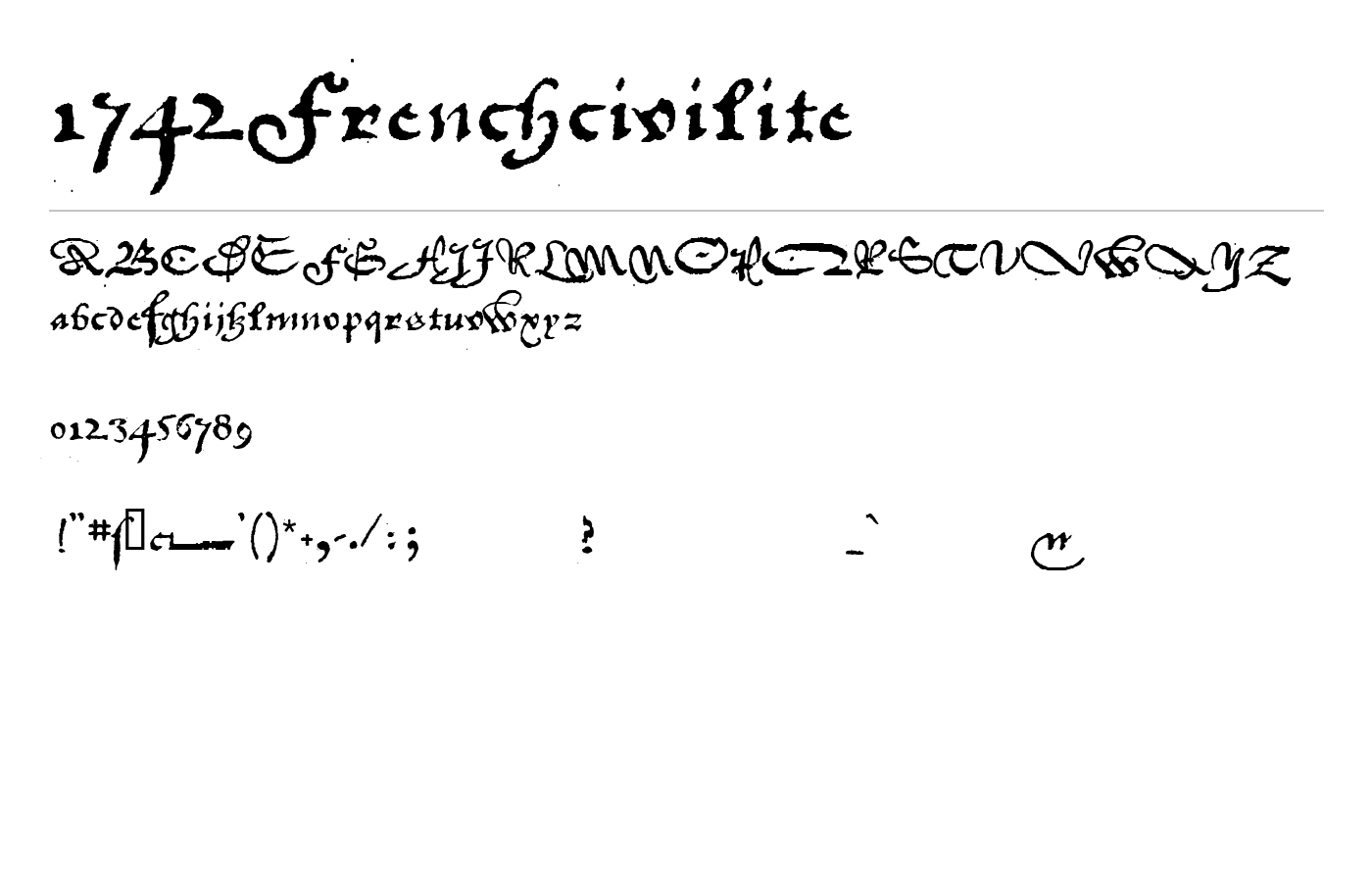
1742Frenchcivilite is a highly decorative, calligraphic serif font with an old-world, historical feel reminiscent of 18th-century French script. Its intricate letterforms feature delicate, flowing strokes with varying contrast and unique flourishes, making it ideal for vintage or classical-themed designs that seek an elegant, refined aesthetic. This font works best for decorative titles, invitations, or branding that calls for a touch of historical charm and sophistication.